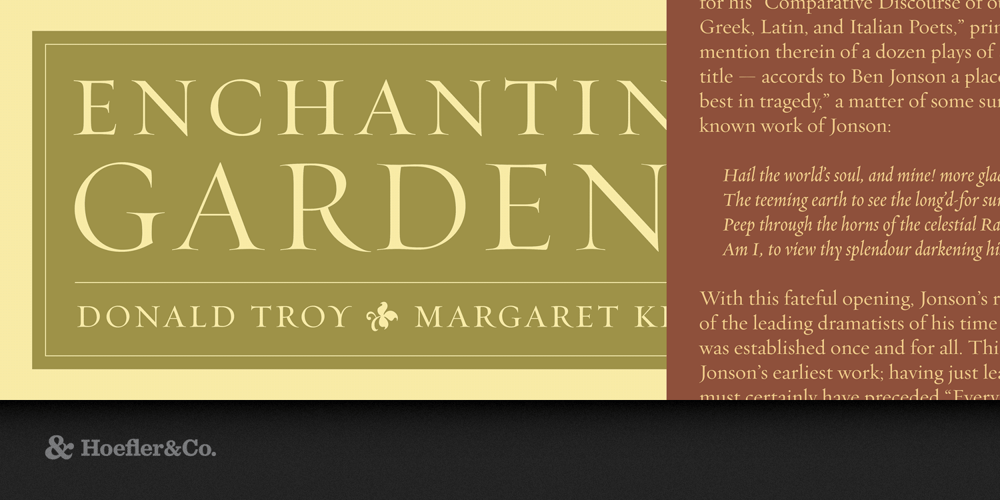
Requiem Font Family was designed by Jonathan Hoefler and published by Hoefler & Co.. Requiem contains 8 styles and family package options. Inspired by an illustration in a sixteenth-century writing manual, Requiem celebrates the fertile world of Renaissance humanism. The Requiem typeface was designed by Jonathan Hoefler in 1991. Rooted in the ‘humanist’ style of renaissance Venice, which arose in contrast the dark gothic letters of Gutenberg, Requiem’s capitals are modeled on an alphabet appearing in Il Modo de Temperare le Penne, the 1523 calligraphy manual by writing master Ludovico Vicentino degli Arrighi. The family includes an invented roman lowercase, a ‘chancery italic’ of a contemporaneous style, and separate masters for large, medium, and small sizes. Requiem was commissioned by Travel & Leisure magazine, in whose pages the typeface first appeared in 1993. From the desk of the designer: The typefaces of the first generation after Gutenberg were all based on contemporary handwritten forms. But with the Renaissance came a renewed interest in the inscriptional lettering of the classical period, especially the capital letters that come to us directly from Roman monuments. Attempting to dissect these letters scientifically was a common pastime among the most prominent Renaissance minds: Fra Luca de Pacioli, remembered as the father of double-entry bookkeeping, took up the subject in De Divina Proportione (1497); publisher Geoffroy Tory offered a more mystical analysis in Champ Fleury (1529). One of the great treatises on the constructed alphabet was On the Just Shaping of Letters (1535), by no less than the old master Albrecht Dürer. Approaching lettering from the perspective of practitioners were the writing masters, whose writing manuals taught the methods by which every form of lettering could be rendered. First among equals was Ludovico Vicentino degli Arrighi (1480-1527), a calligrapher at the Apostolic Chancery in Rome. His writing manual Il Modo de Temperare le Penne (1523) includes one of the most elegant renderings of the classical alphabet, letters which were freed from the shackles of geometry and simply shown floating in a solid field of black. These letters served as the basis for Requiem’s Display Roman and Small Caps. Missing from most of the renaissance writing manuals — including Arrighi’s — is a viable roman lowercase. The upright lowercase was more the province of typefounding than calligraphy, so the few writing masters who attempted a lowercase did so hesitatingly, often with gloomy results. (The lowercase in Giovanni Francesco Cresci’s 1570 Il Perfetto Scrittore is among the best, though even this is overly gothic.) Requiem’s lowercase is therefore an invention, as are its figures and punctuation, but for its italic it returns wholeheartedly to the full-blooded “chancery cursive” for which Arrighi is most famous. Finally, Requiem includes two sets of alphabets contained within decorative “cartouches,” whose endpieces are inspired by the work of Arrighi’s contemporaries Giovanni Battista Palatino and Vespasiano Amphiareo.